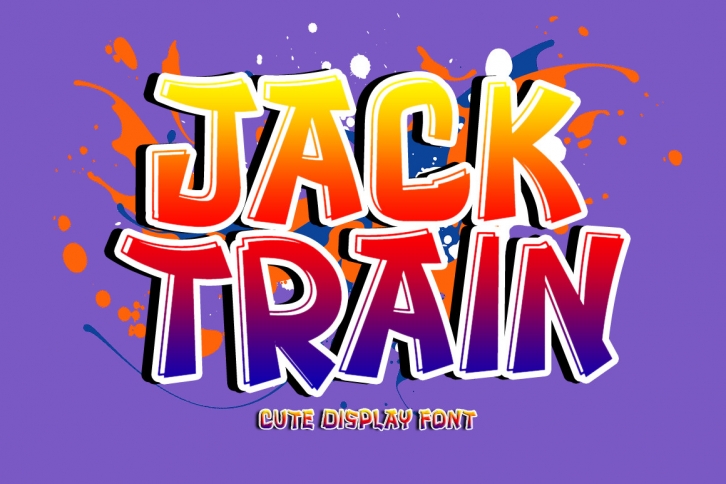
Jack Train is a beautiful and sweet font. It is fresh, clean, and elegant. This font will look amazing in a great amount of projects, both formal and informal.It will add an incredibly joyful touch to your designs.Fonts designed to simplify your design. By using this font, your business will look more beautiful